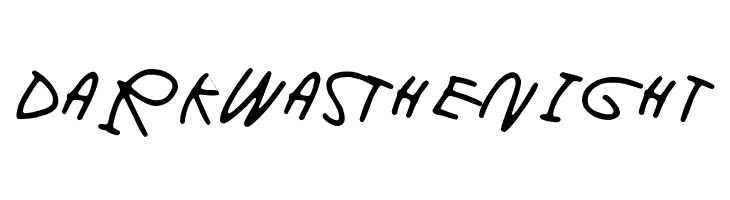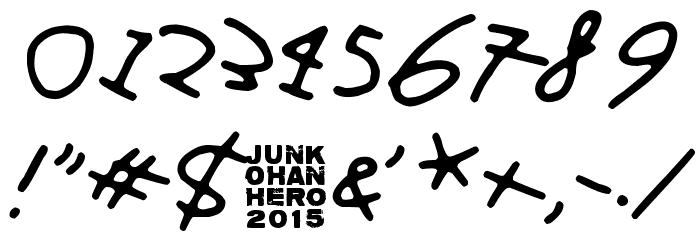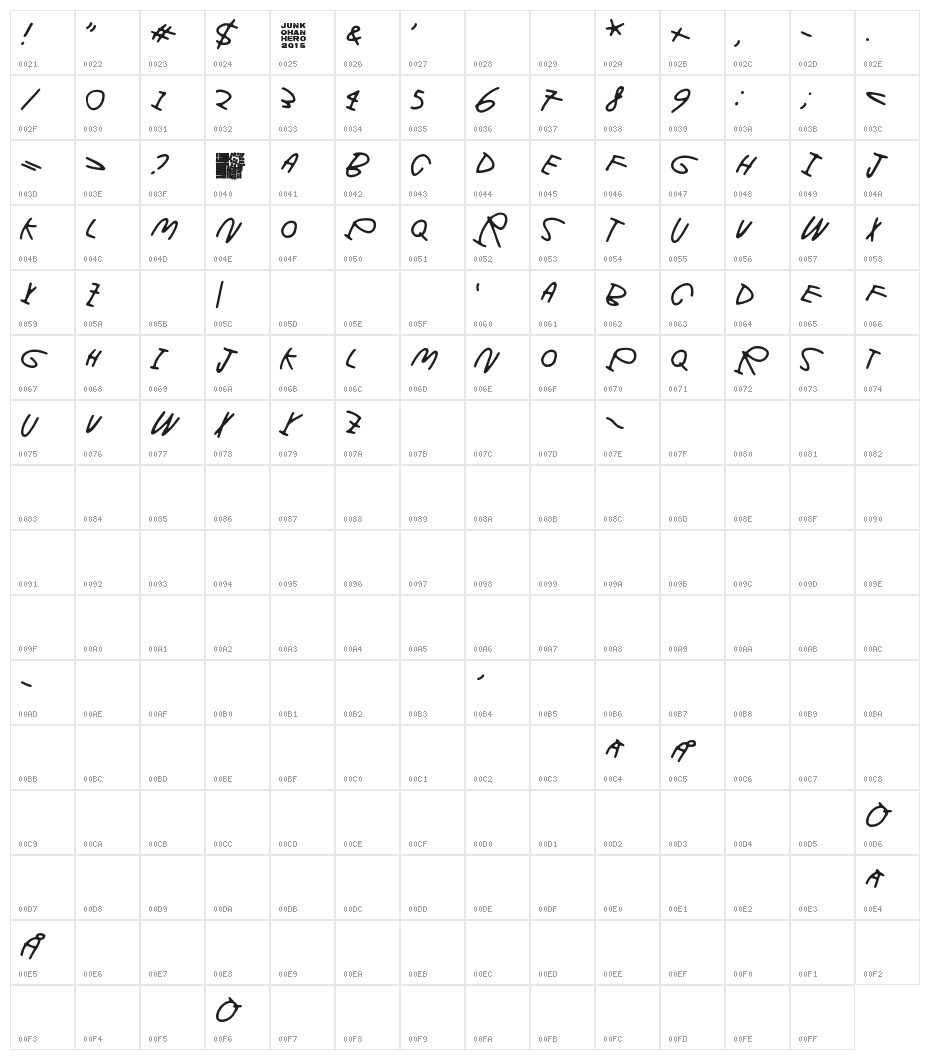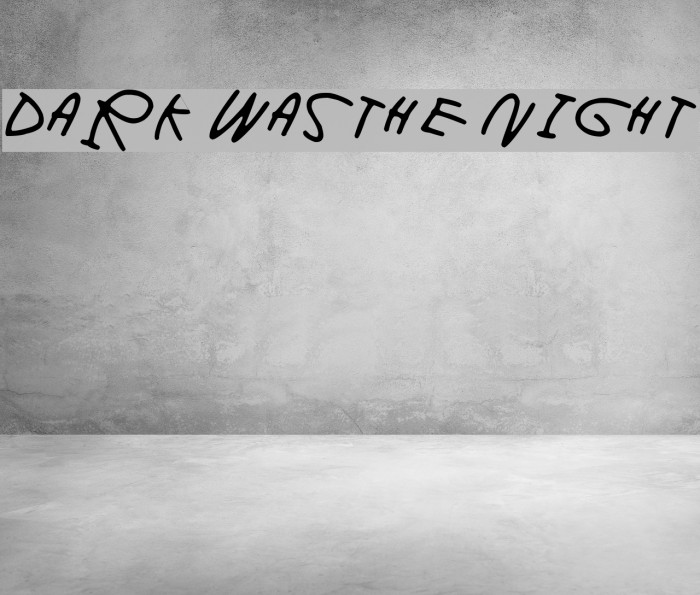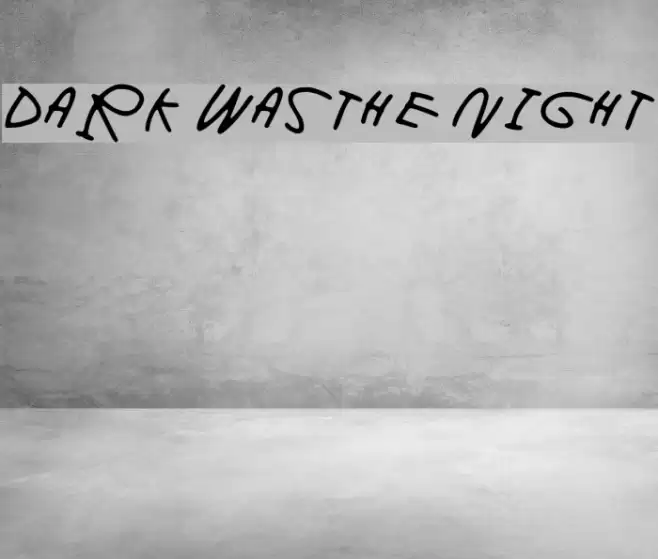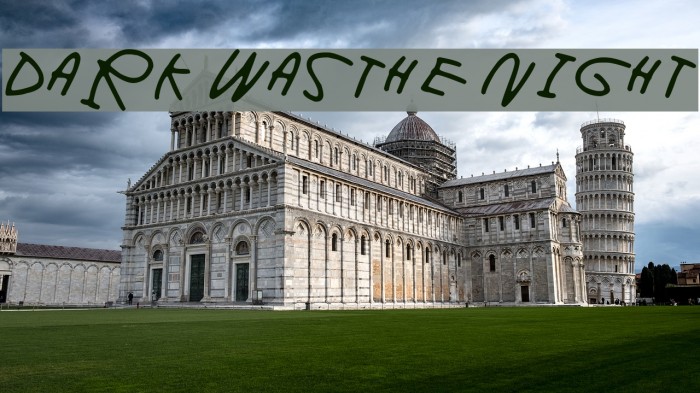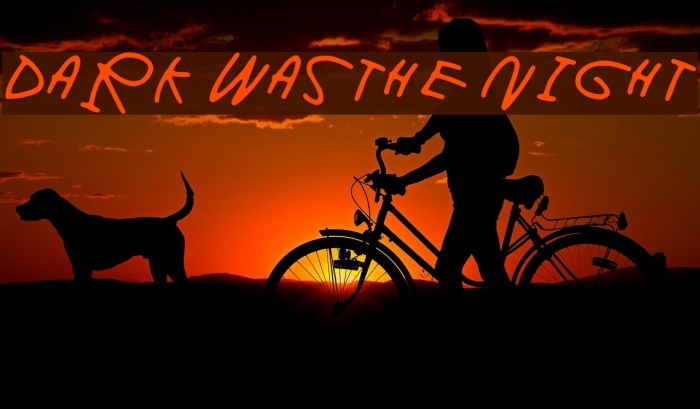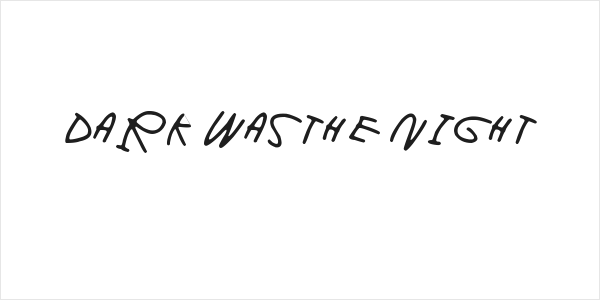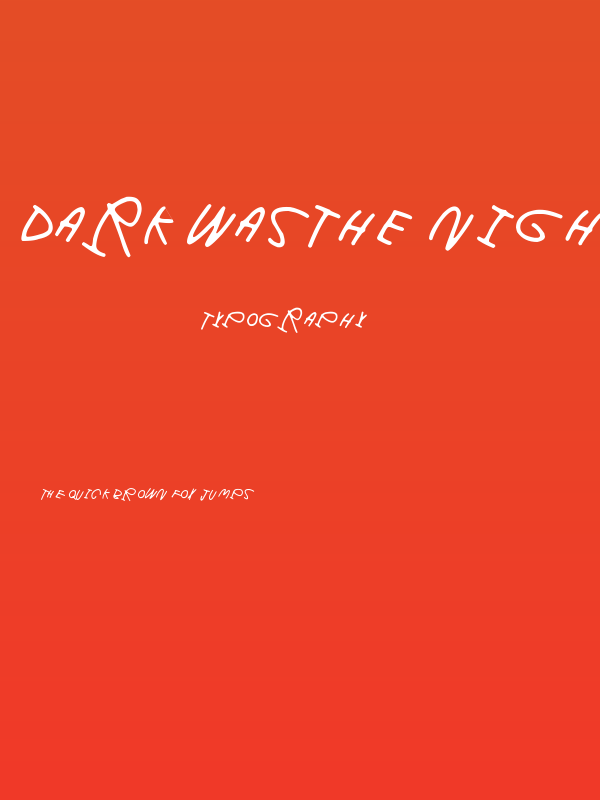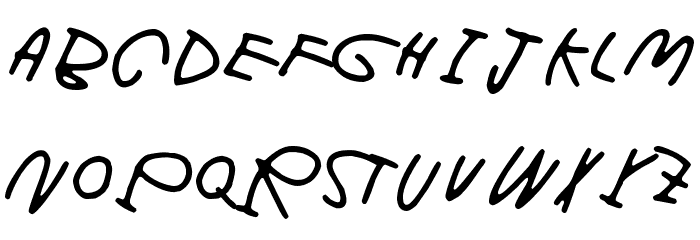
Dark was the night Font
Dark was the night Description
This font features a playful, handwritten style with a casual and informal appearance. The letters are slightly slanted, giving it a dynamic and energetic feel. The strokes are uneven, adding to its organic and authentic look. The uppercase and lowercase letters maintain a consistent style, with rounded edges and a smooth flow. Numbers and special characters are crafted with the same playful touch, making them easily recognizable. This font is ideal for projects that require a personal, friendly, and approachable tone.
| Use Case | Headlines, Informal Text, Creative Projects |
| Proposed Projects | Great for greeting cards, personal invitations, children's books, and creative branding. |